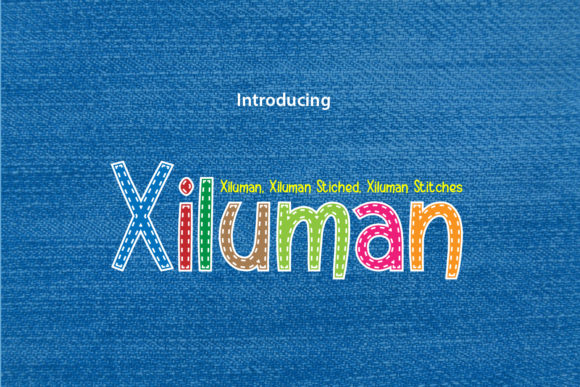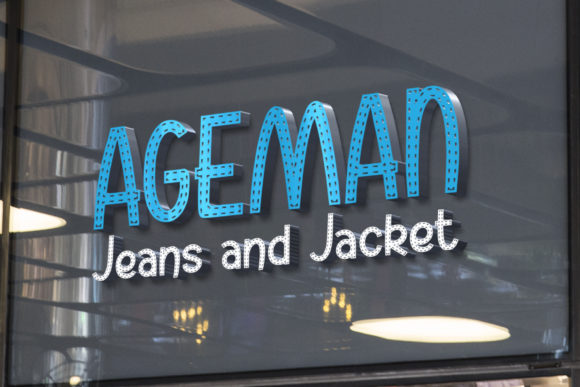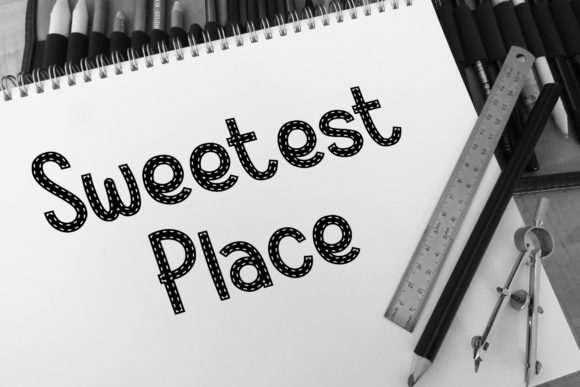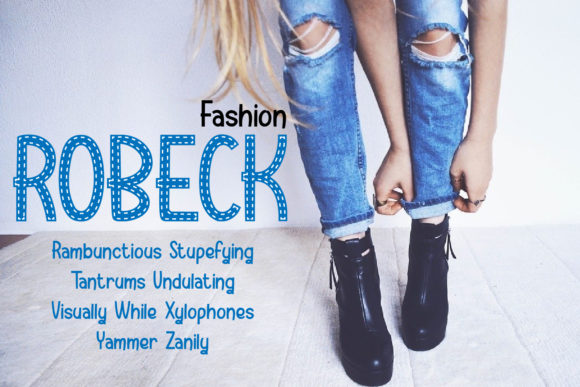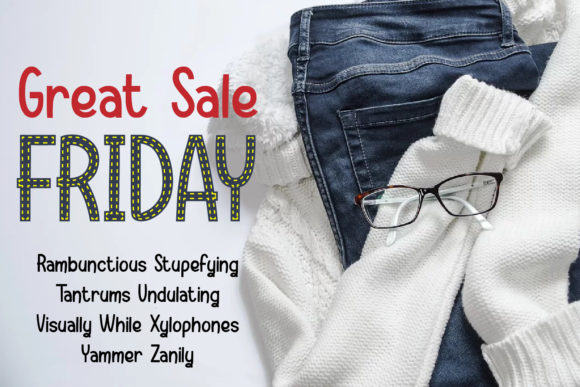
Xiluman Font
About Xiluman Font
Xiluman is a magical script font carefully created with a touch of elegance. This is a beautiful combination of timeless elegance and authentic calligraphy. It features an incredibly classic style, while still keeping a friendly feel. Xiluman is the perfect font for making original and outstanding designs. It comes in three distinct styles, Stiched, Stitches and Regular.